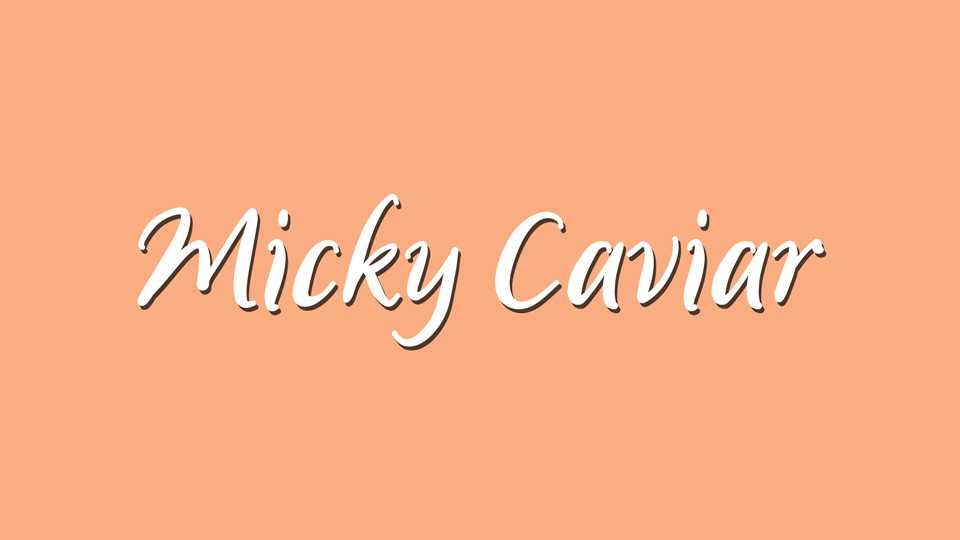
Download Micky Caviar font, a lovely and sweet calligraphy script that will add a charming, natural touch to any projects. Handcrafted with care, Micky Caviar font is well suited to create everything from wedding invitations to logos – all with an authentic feel.